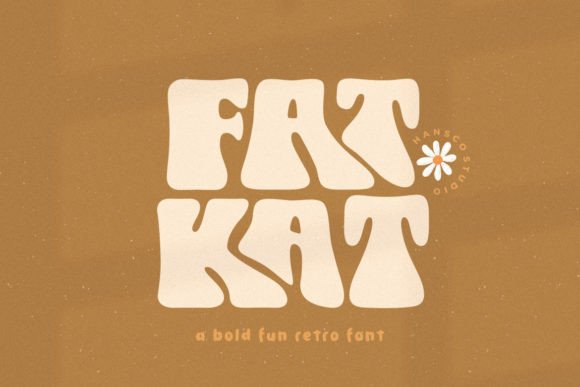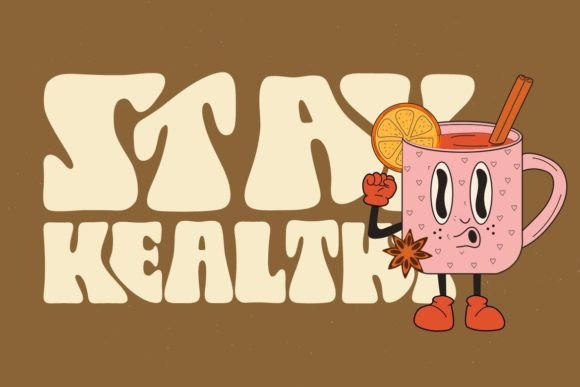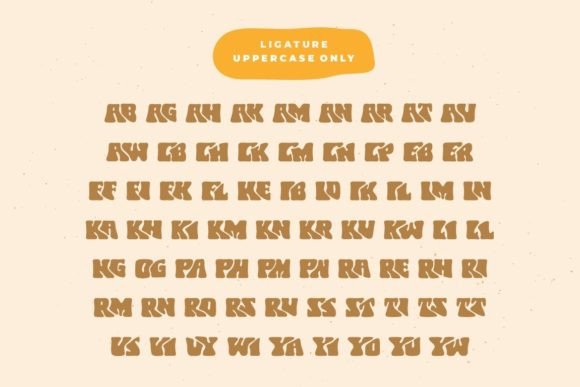
Fat Kat is a bold retro display font with a fun, modern twist. Let yourself be amazed by its cool and funky vibe and use it in your most creative projects.